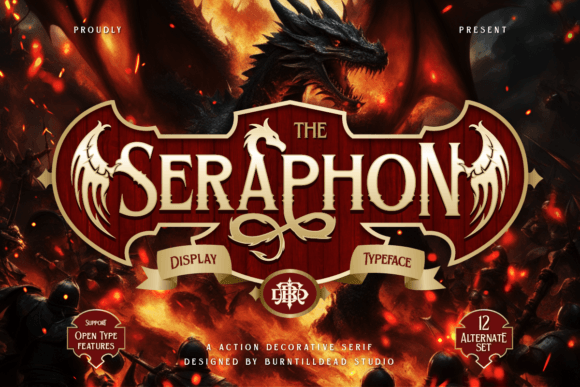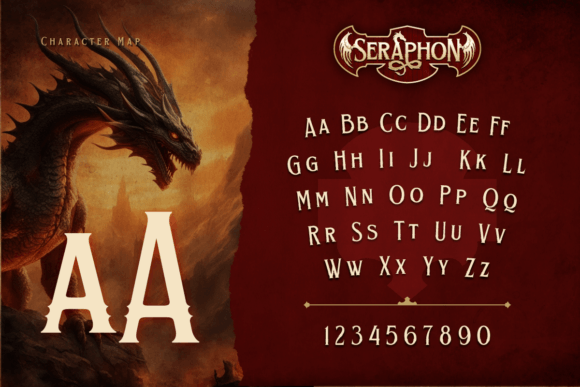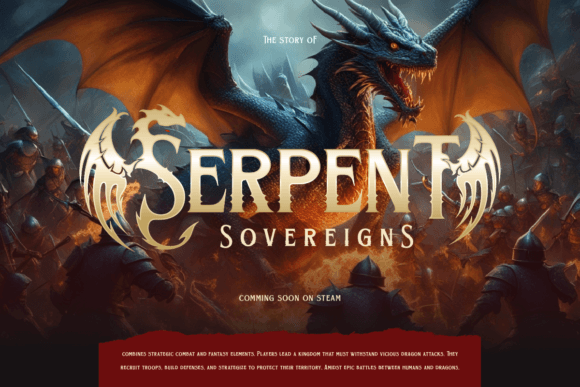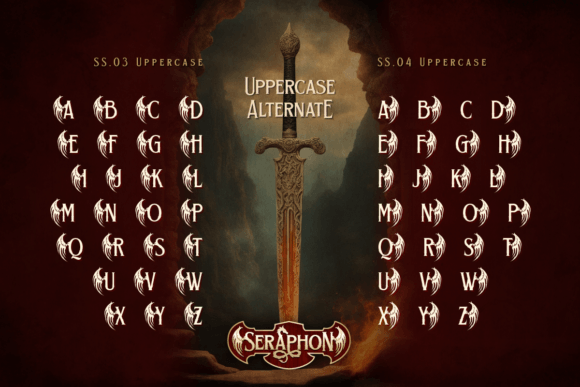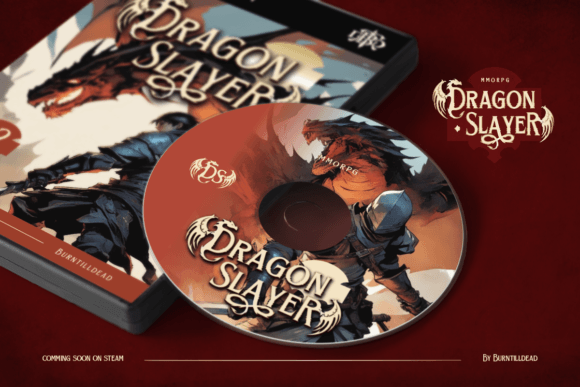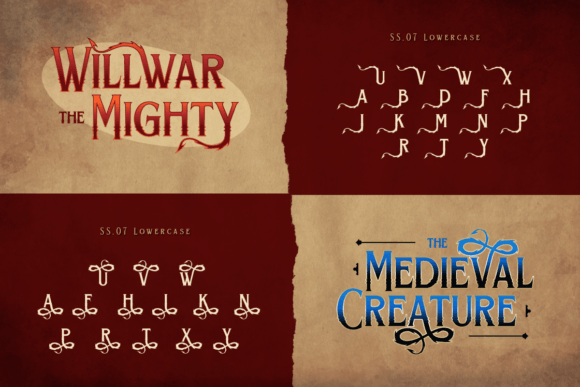
Seraphon Font
Be the dragon master with Seraphon! Inspired by the ferocity, and power of the dragons. Each letter is carved with astonishing detail, reflecting the majesty and power of mythical creatures. With sharp lines and a majestic design, this font gives text a magical touch. Also, the alternate is highly detailed with dragon parts on each letter. Perfect for game titles, movie poster titles, fantasy novel covers, and other designs that require dragon themes.